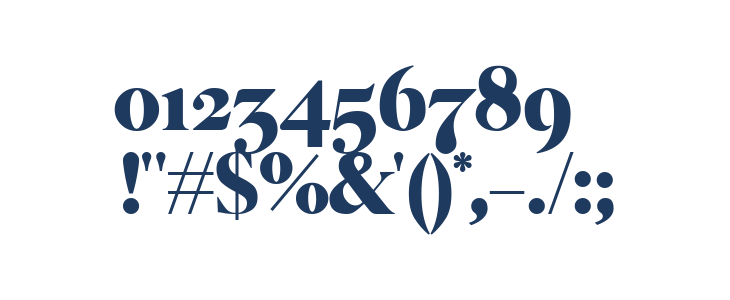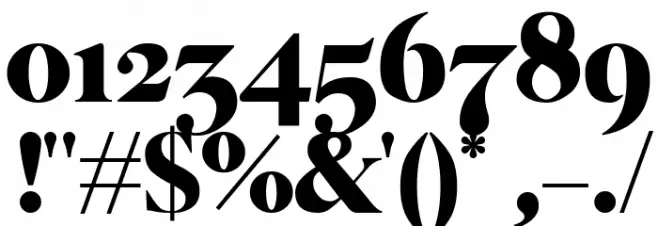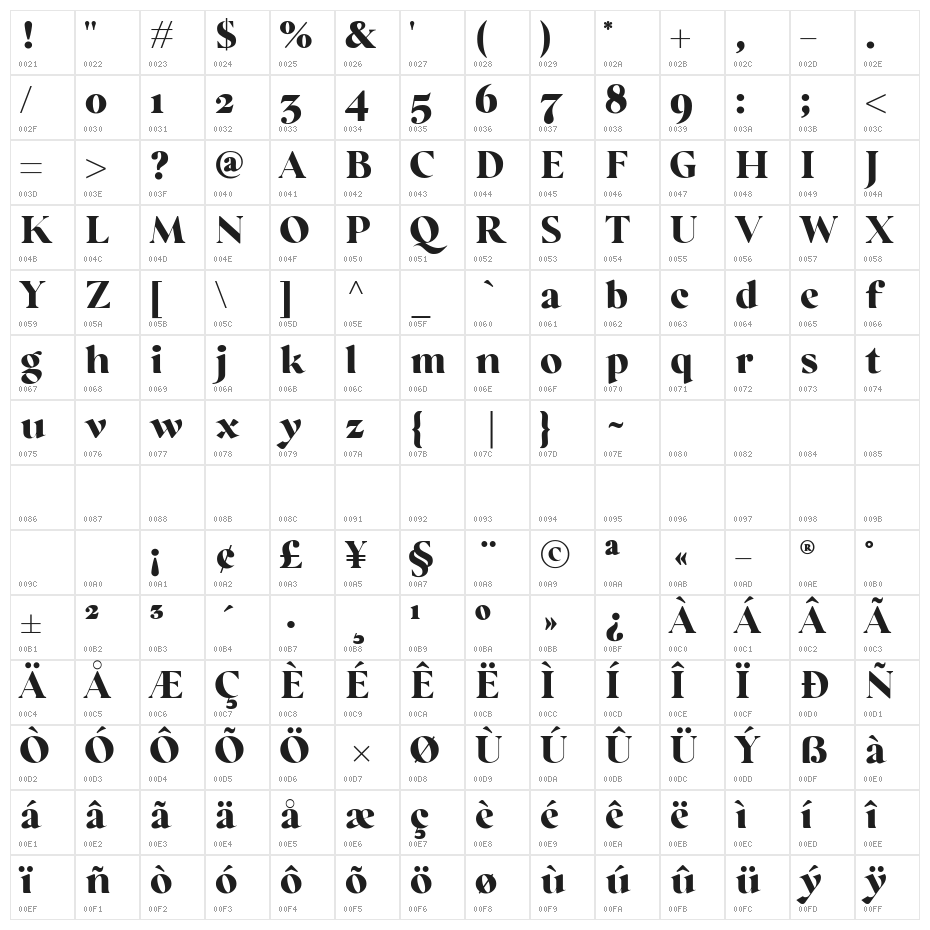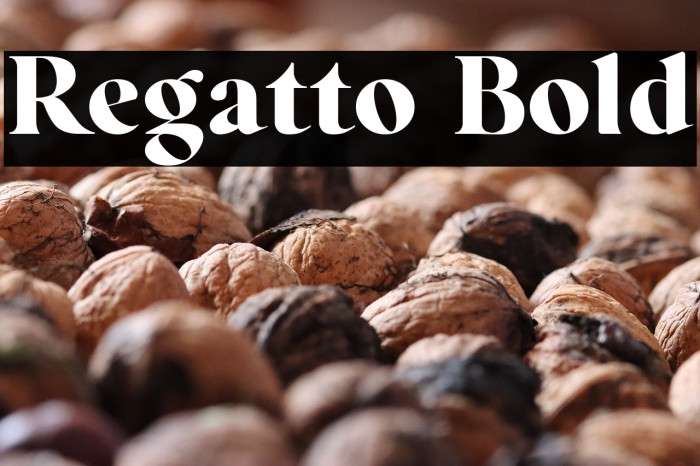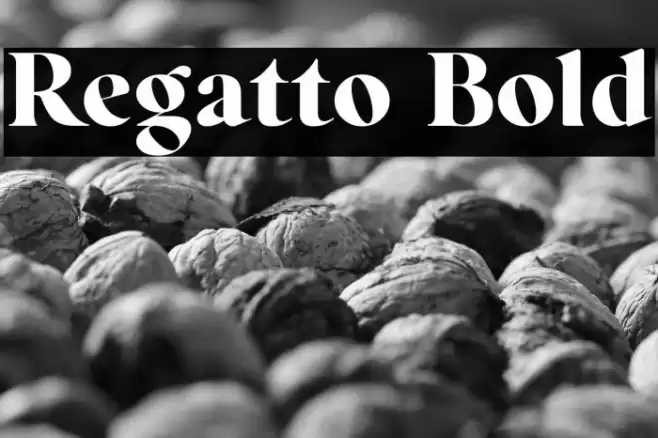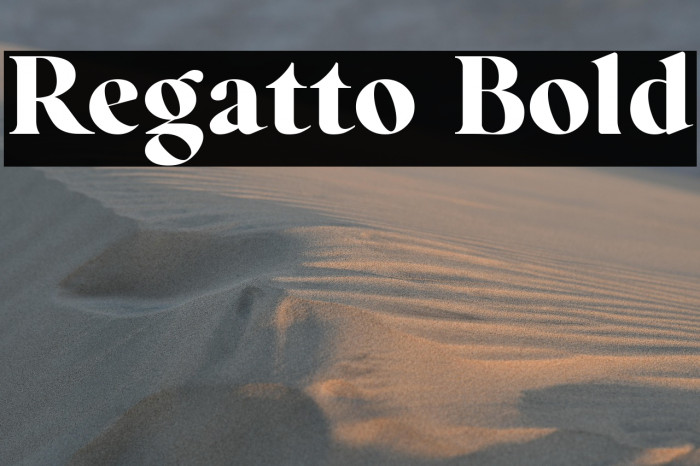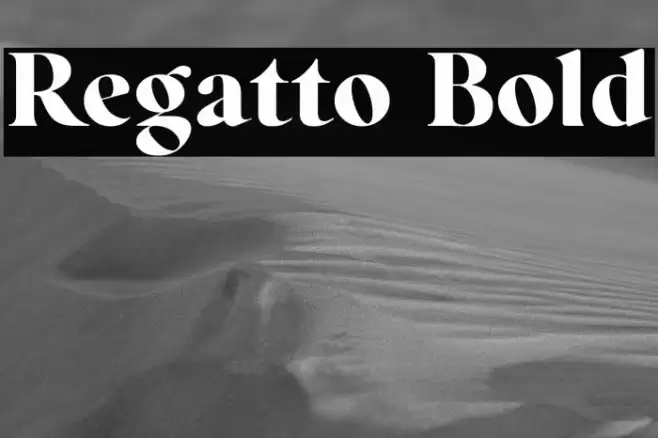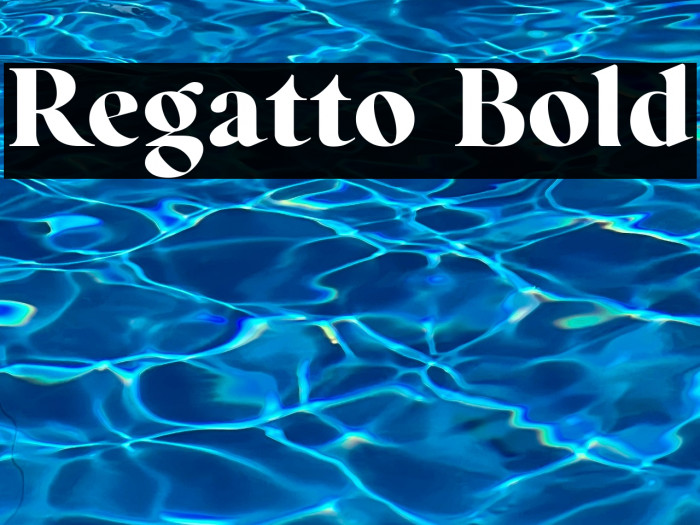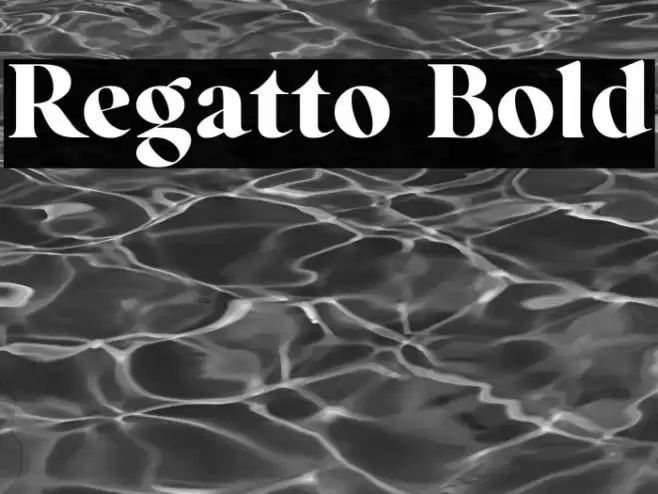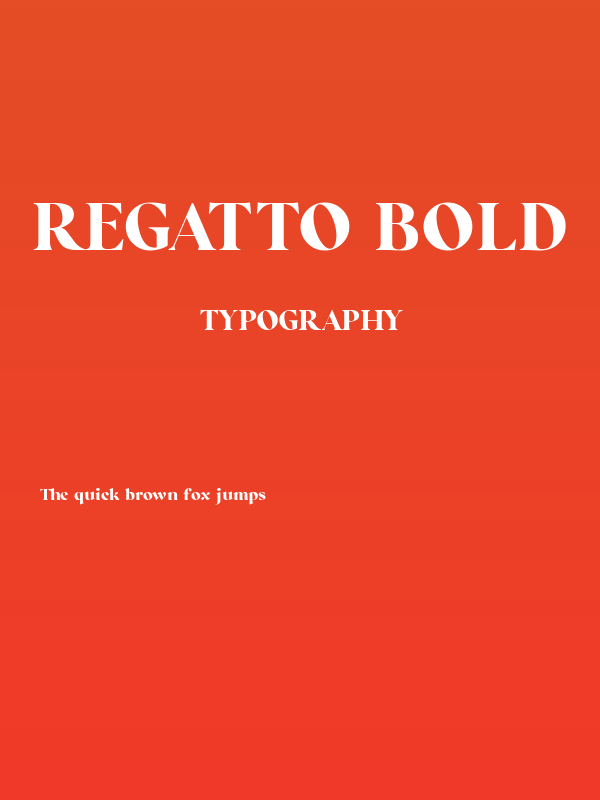
Regatto Bold Font
Regatto Bold Description
This font features a bold and elegant serif style with high contrast between thick and thin strokes. The uppercase letters exhibit a classic and sophisticated appearance, with sharp serifs and a strong presence. The lowercase letters maintain a consistent style, offering a harmonious blend of curves and angles. Numbers are designed with the same boldness, ensuring readability and impact. Special characters are crafted with attention to detail, complementing the overall aesthetic. This font is ideal for projects that require a touch of elegance and authority.
| Use Case | Headlines, Logos, Editorial design |
| Proposed Projects | Ideal for luxury branding, editorial design, book covers, and high-end packaging. |